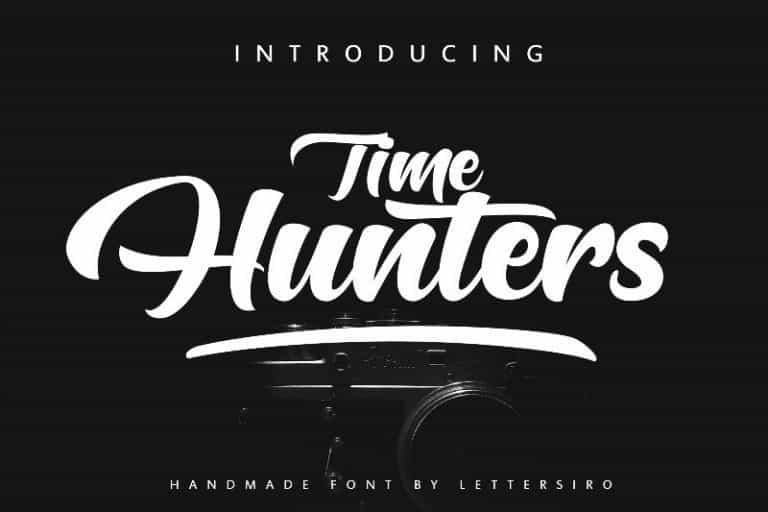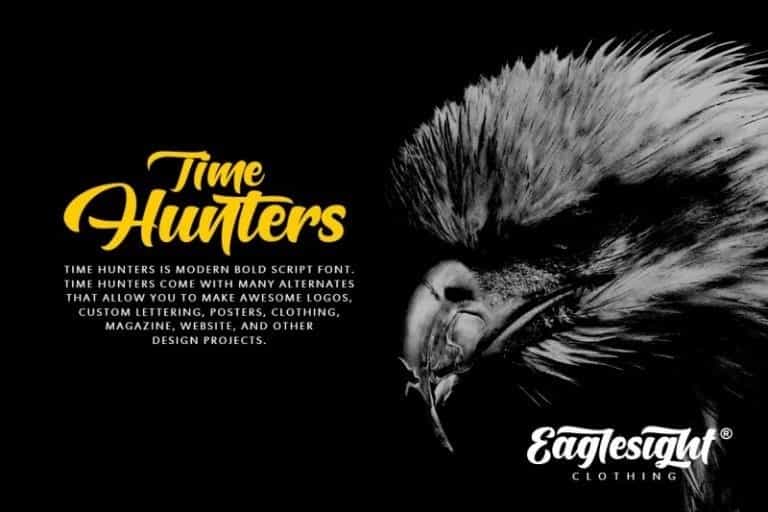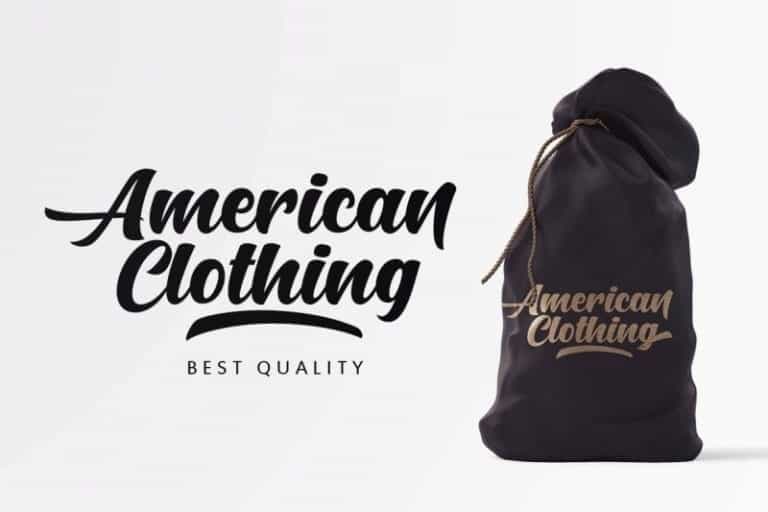
Hunters is a playful bouncy modern bold script font. This font is especially well-suited for logotype creation, svg designs, wedding invitations, lettering compositions, fashion projects and e-book designs. The font also support multilingual.